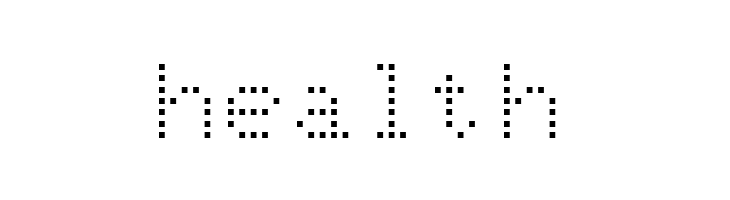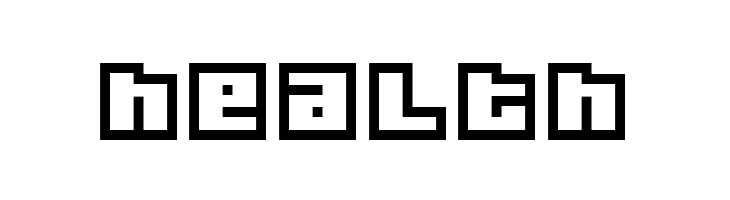
A modern serif font with sharp serifs and high contrast strokes.
A bold, high-contrast font with geometric elements and a modern, artistic style.
A bold, geometric outlined font with a modern and minimalistic style.
A bold, playful font with a retro, groovy style and rounded strokes.
A bold, calligraphic font with sharp, angular strokes and dramatic flair.
A bold, impactful font with strong, assertive characters.
A clean, modern font with excellent readability and balanced spacing.
A pixelated, grid-based font with a retro digital aesthetic.
An elegant and flowing script font with ornate letterforms.
A dot matrix font with a modern, digital display style.
A playful, casual handwritten font with irregular strokes.
A bold, distressed font with a rugged, grunge appearance.
A bold, rugged font with a vintage, industrial feel and consistent stroke widths.
A bold, distressed font with a vintage, hand-crafted appearance.
An ornate and decorative script font with elaborate swirls and flourishes.
A bold, modern sans-serif font with geometric structure and high legibility.
A modern, geometric typeface with a bold, condensed style.
A bold, geometric sans-serif font with a strong, modern presence.
A modern, geometric sans-serif font with a tall, condensed style.
A bold, modern sans-serif font with clean lines and geometric shapes.
A bold, modern font with geometric lines and strong presence.
A playful, bold font with a hand-drawn, casual style.
A bold, aggressive font with sharp, angular edges and dynamic style.